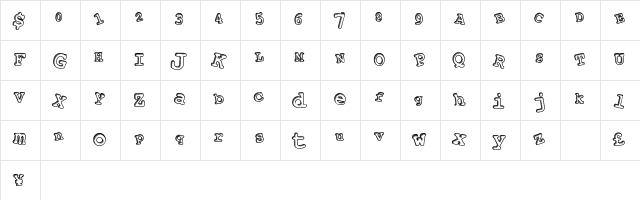
PlayAlong Regular
Design Context for PlayAlong Typeface
PlayAlong is a composed and adaptable typeface that performs quietly and consistently across a wide range of design contexts.